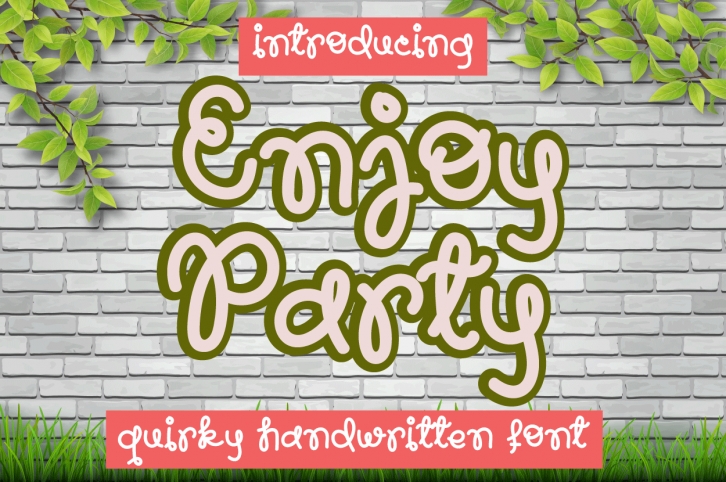
Enjoy Party is a sweet and round lettered script font. Whimsical and a bit quirky, this font will brighten up each of your designs. Add it confidently to your projects, and you will love the results.